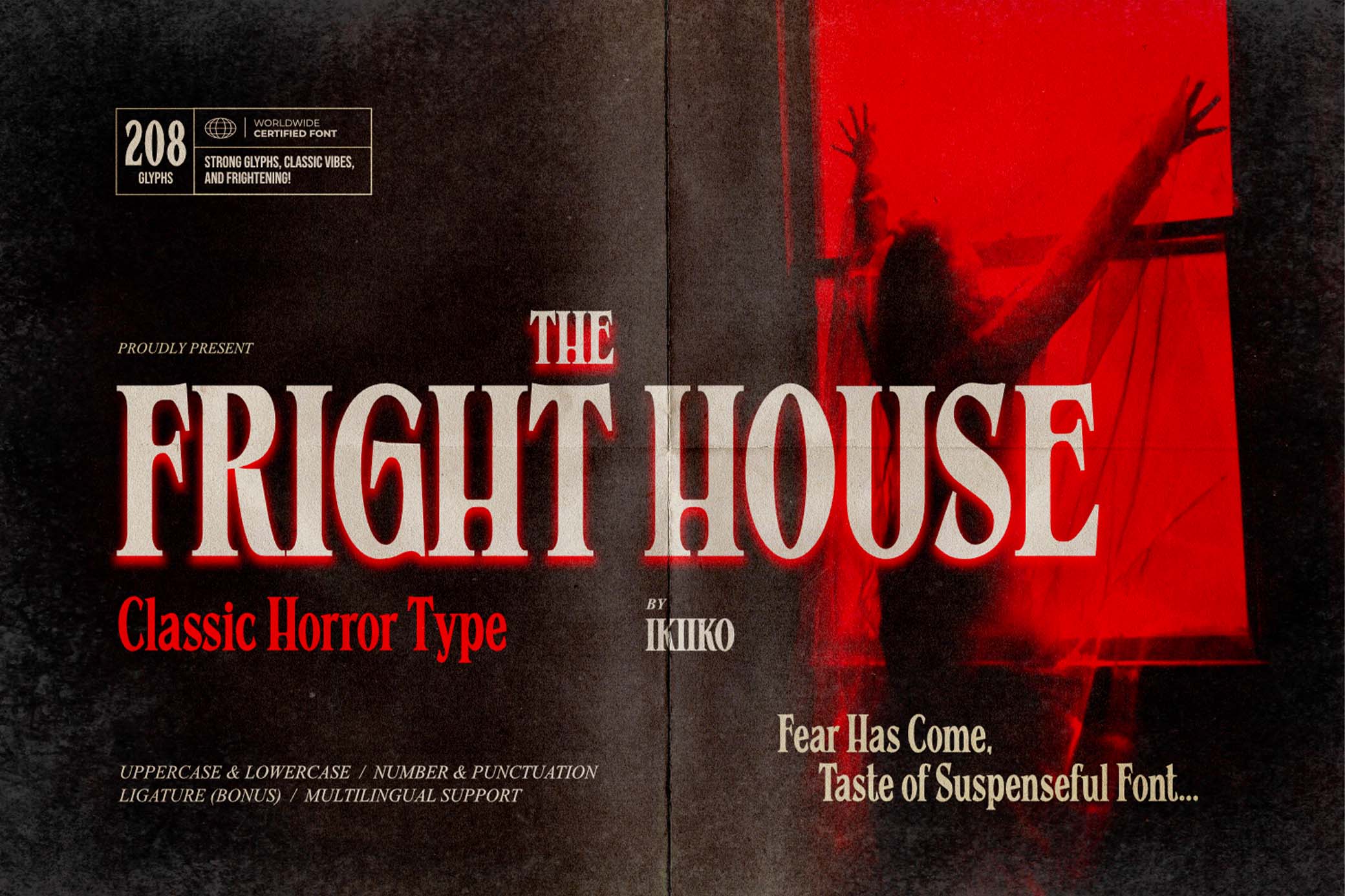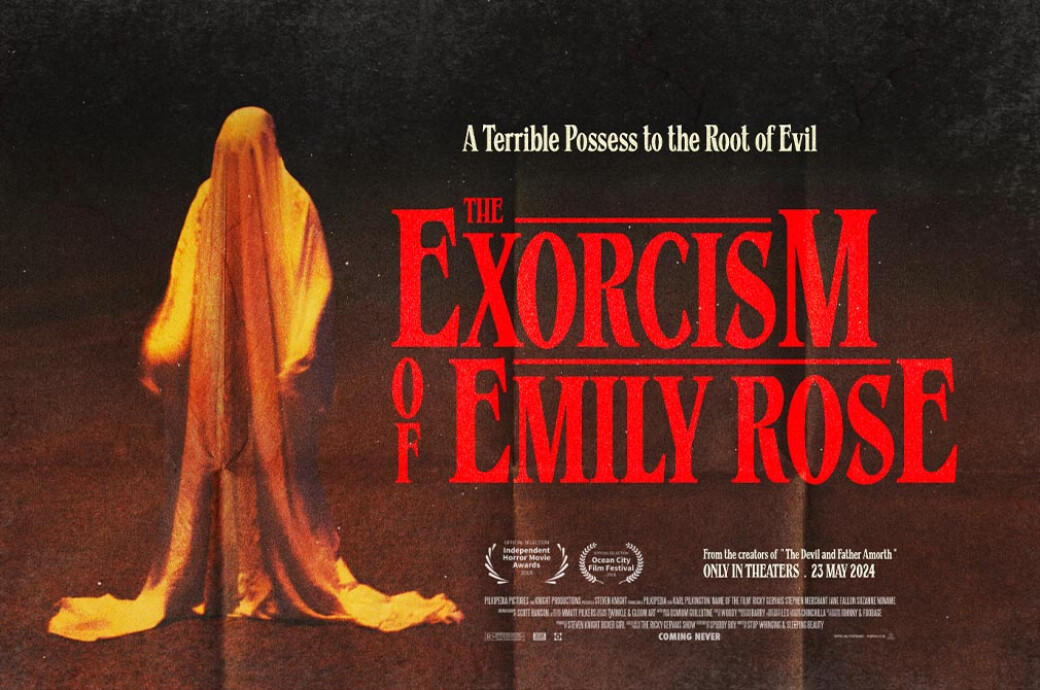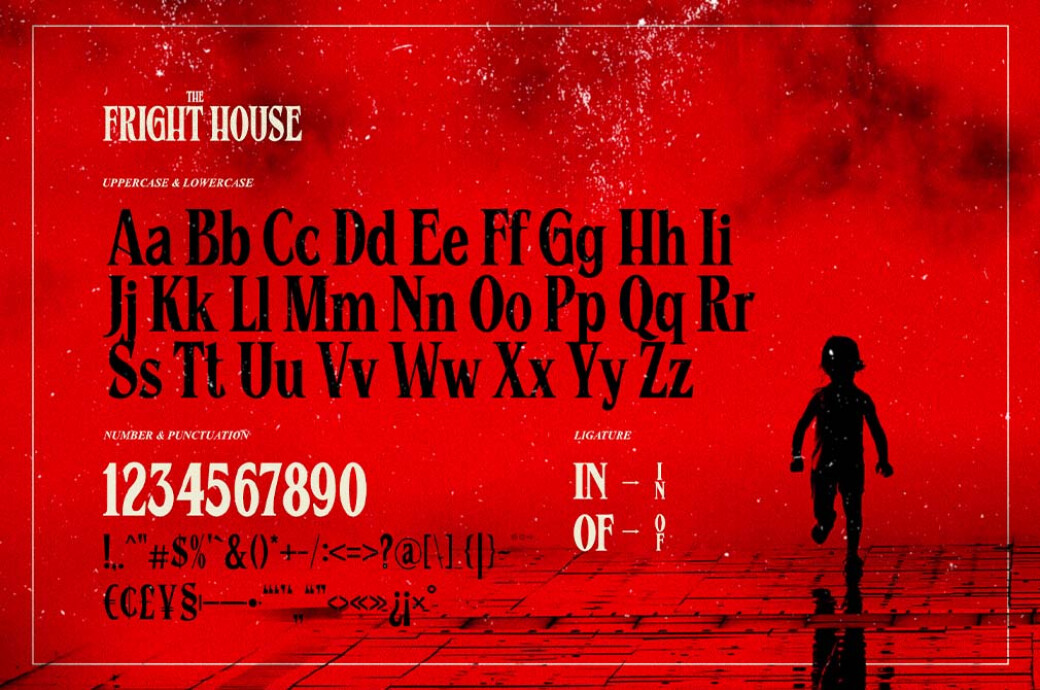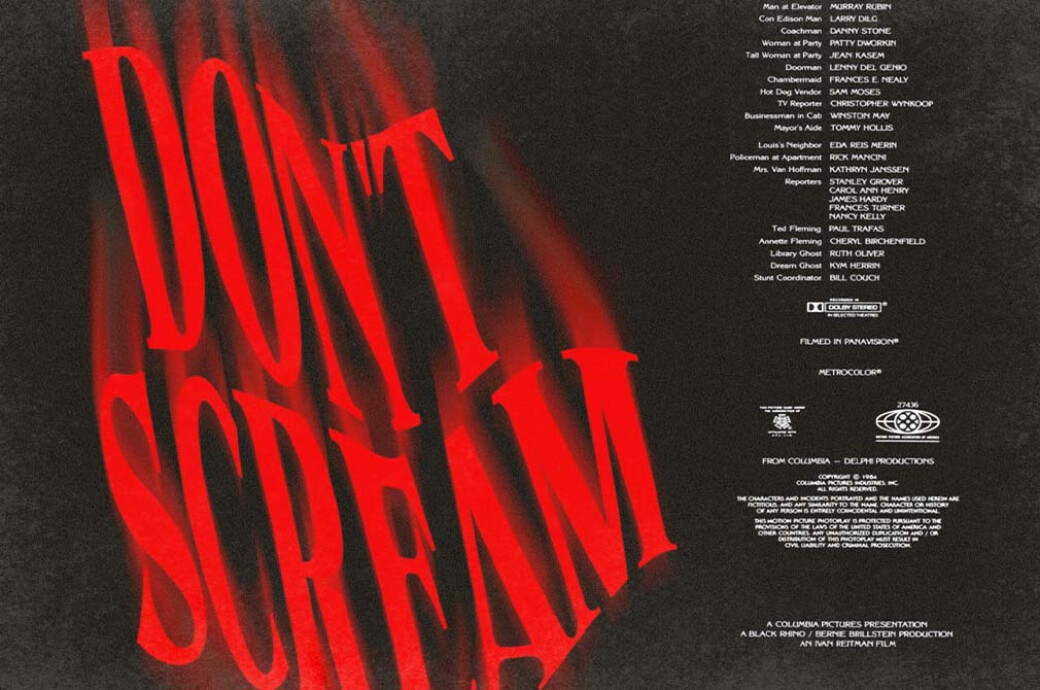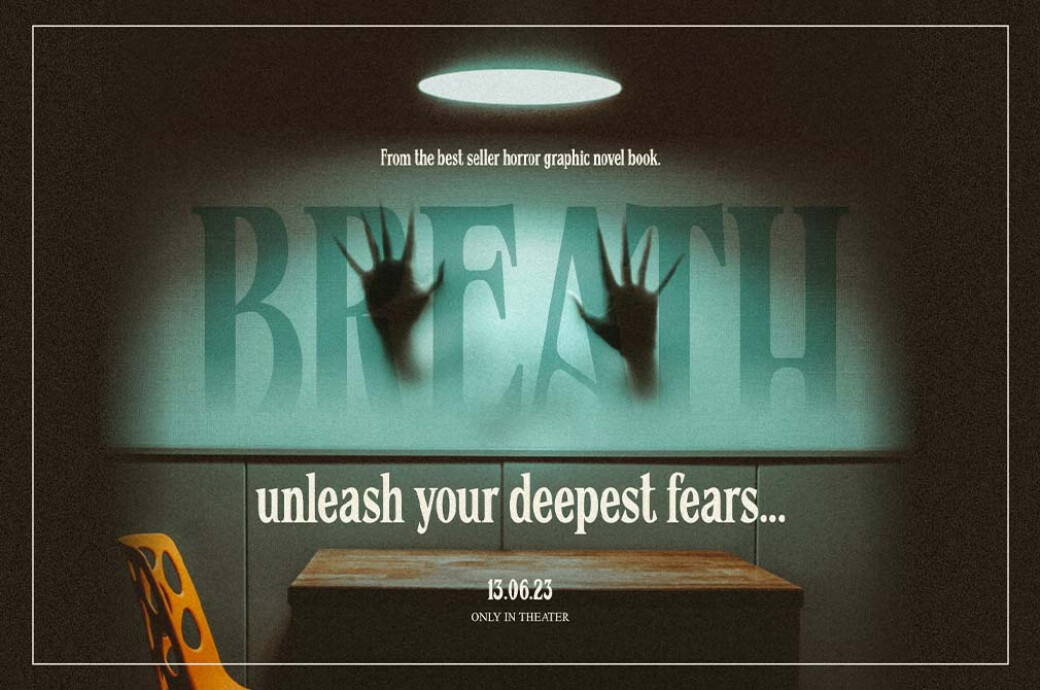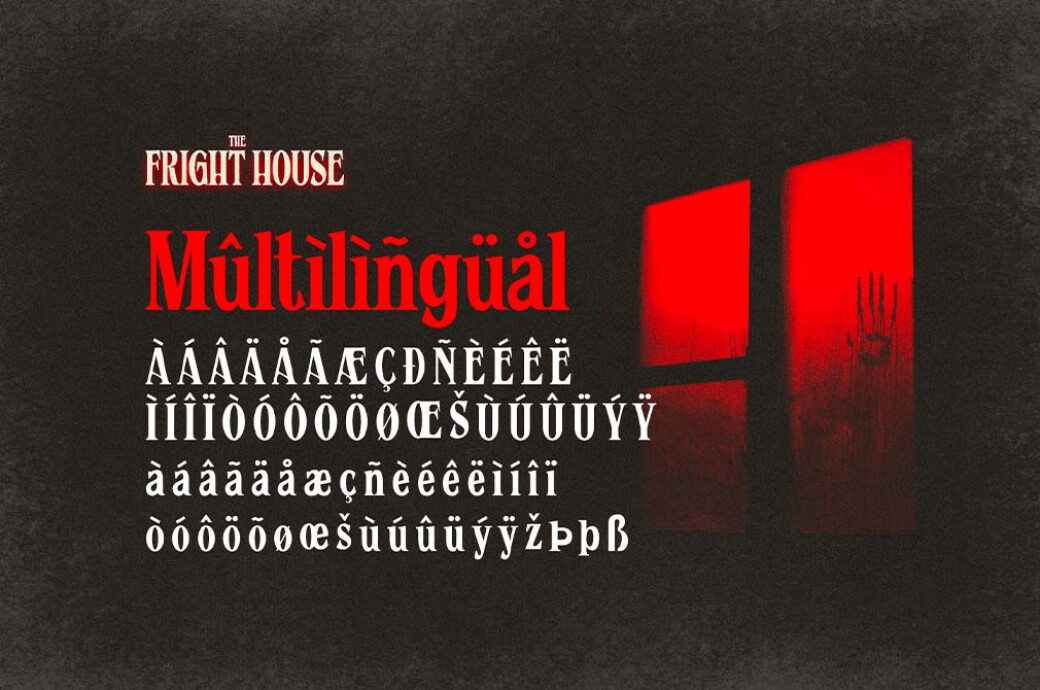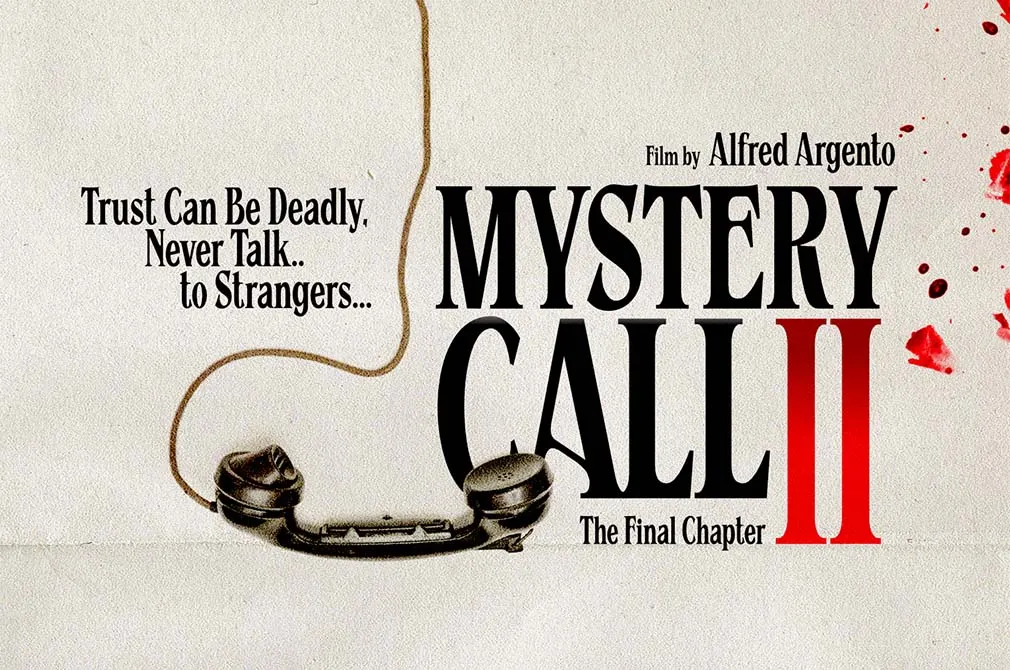
The Fright House — Classic Horror Font
The Fright House
Inspired by classic horror movie posters, The Fright House, with its retro appeal and traditional serif styling, revives the spirit of horror from the 1970s.The Fright House is a classic elongated condensed serif typeface with a timeless elegance and distinct horror fonts' aesthetics. Every character will get you chills down to the bones: upper and lower cases, numbers, punctuation, ligatures, and multilingual support. This font is perfect for a vintage poster, movie title, classic stuff, magazine layout, or book cover.